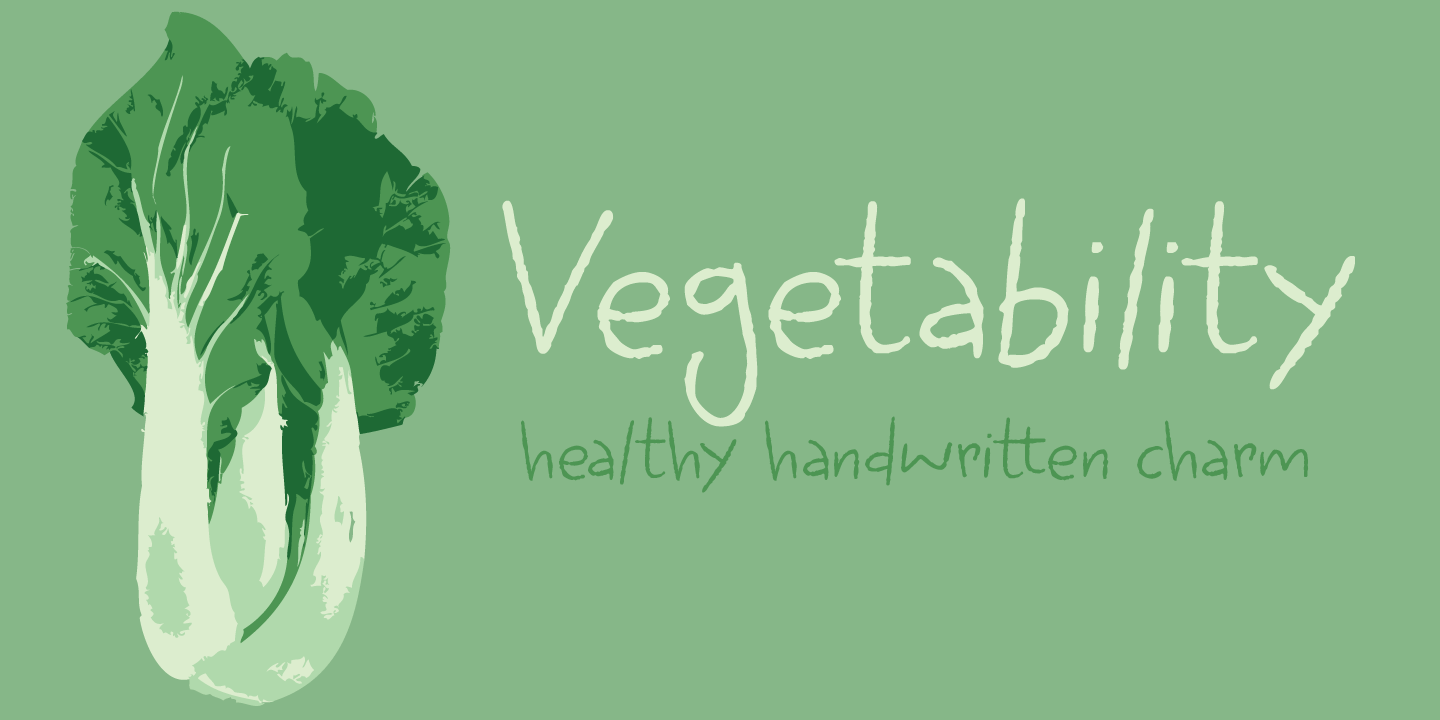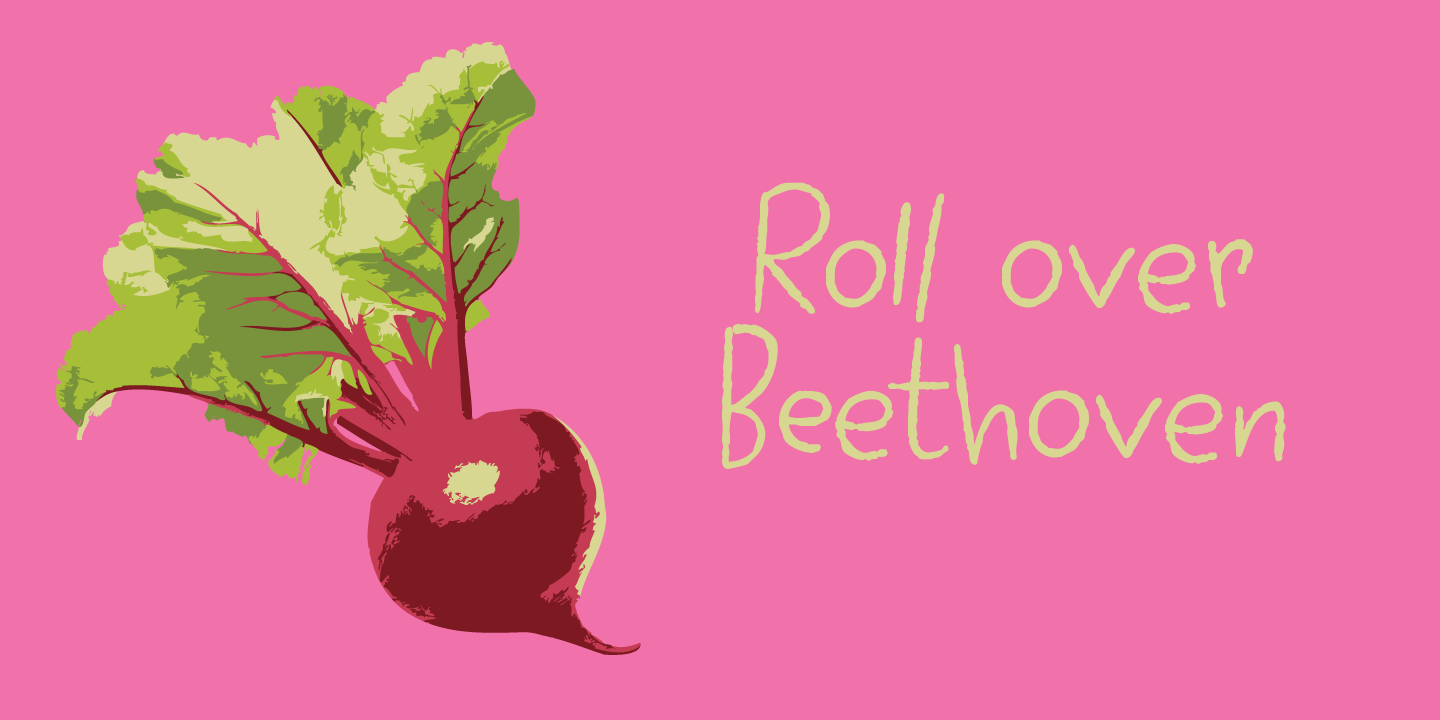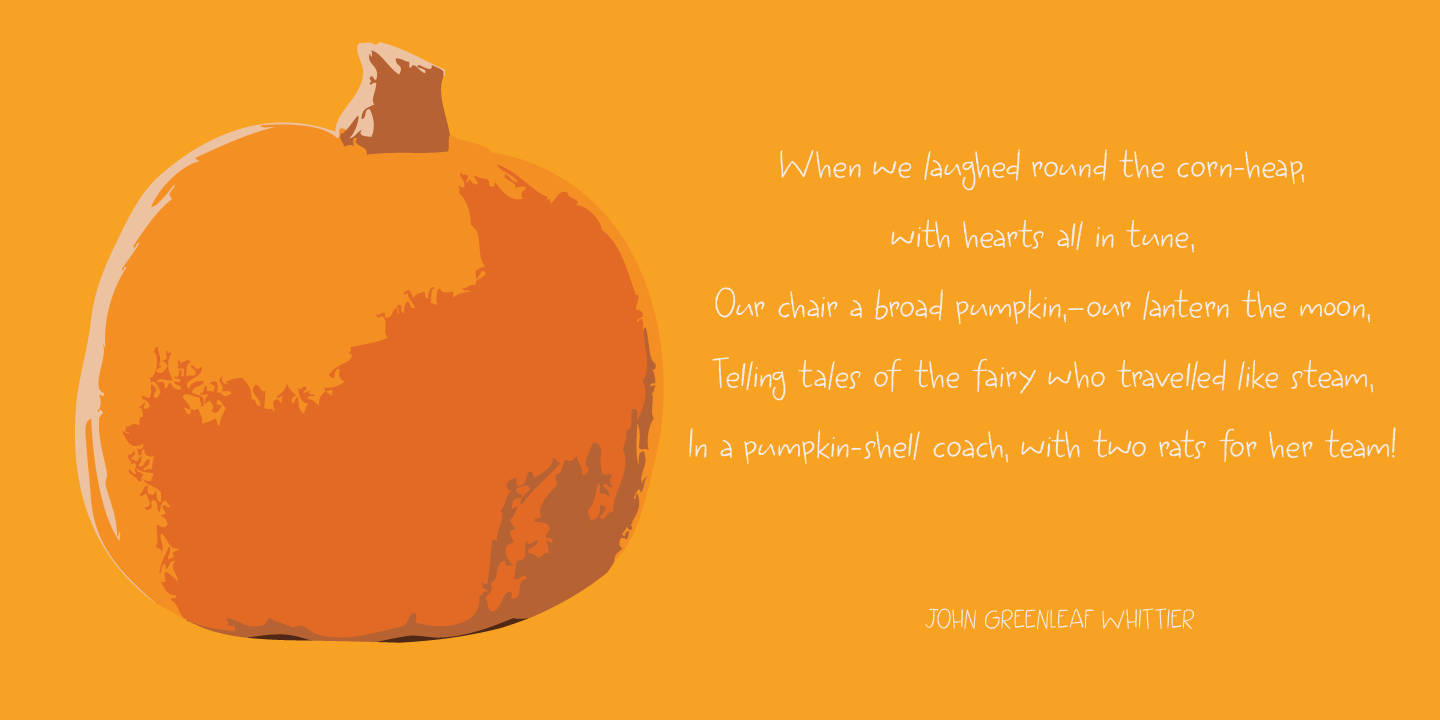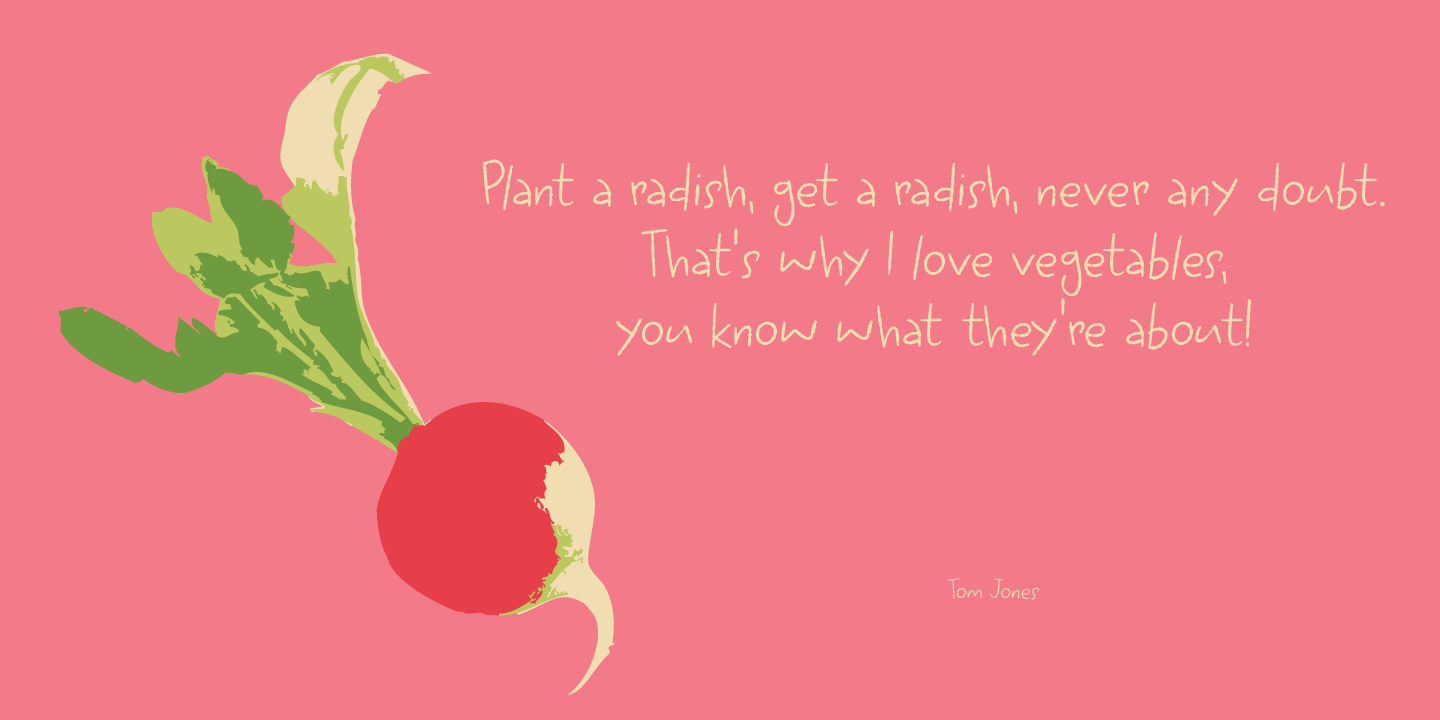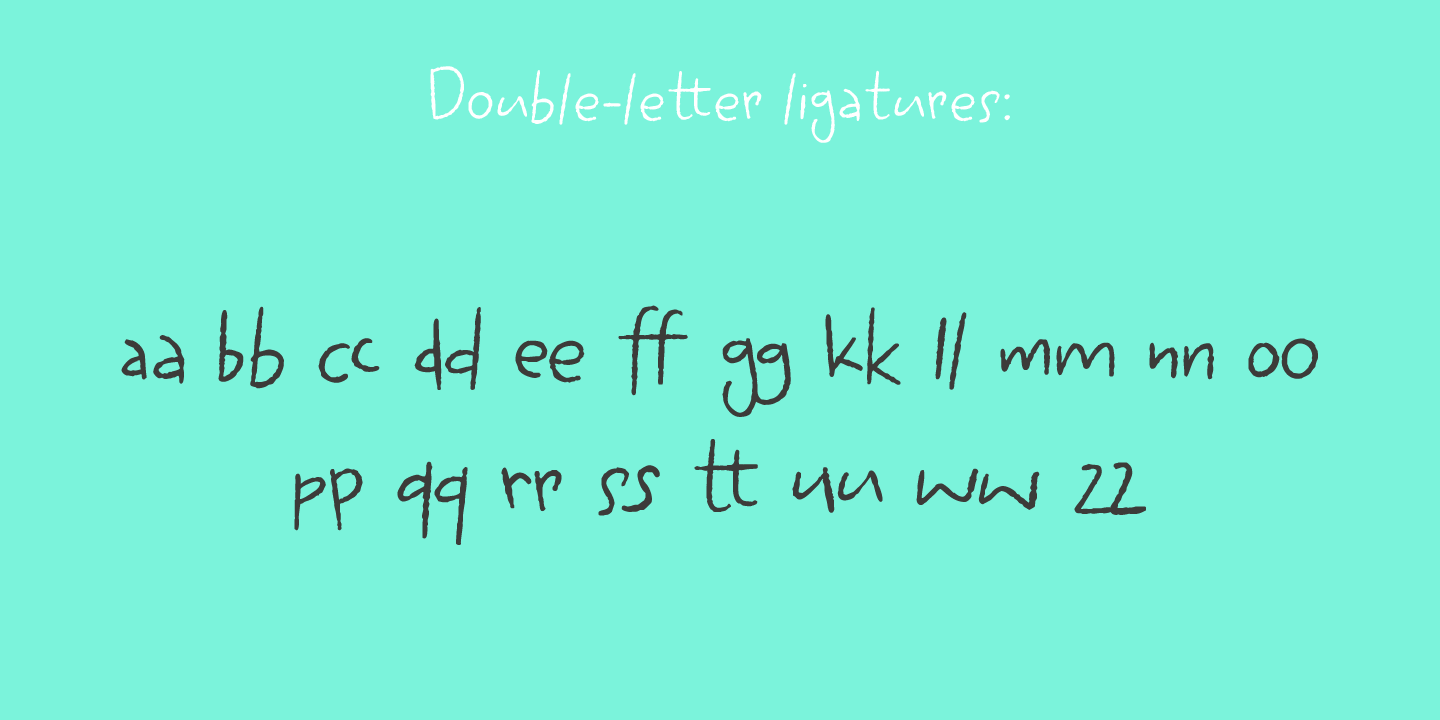
Vegetability
Vegetability: ?The quality or state of being vegetable?. Yes, I know: it's kinda weird, but I quite like the name of this font! I am trying to become a vegetarian (I am a ?flexitarian? right now) and I was trying to find a good veggie recipe for dinner, when this name crossed my mind.
Vegetability is a handwritten font with a dash of roughness, a splash of attitude and a pinch of class. Comes with a whole bunch of diacritics and double letter ligatures for the lower case letters.